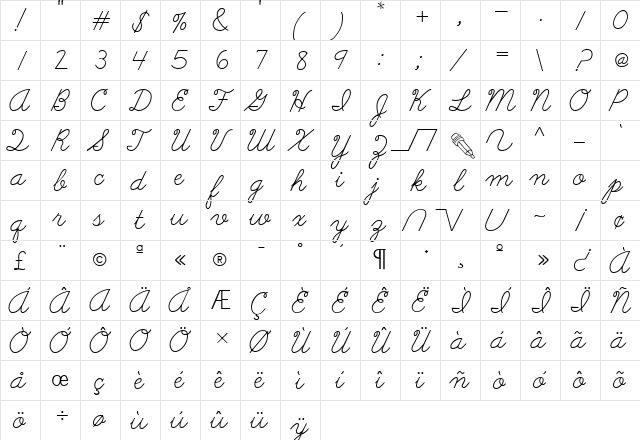
AbcCursive Regular Font Preview
AbcCursive Regular
Design Context for AbcCursive Typeface
AbcCursive flows with the natural rhythm of handwritten lettering, making it ideal for designs that call for warmth and personal expression.
Font Pairing: Combine AbcCursive with a simple geometric sans for maximum contrast — the tension between flowing curves and clean structure is a classic typographic pairing.
Pro Tip: Use AbcCursive for short runs of text — names, titles, or taglines. Extended body copy in script faces tires the eye quickly.